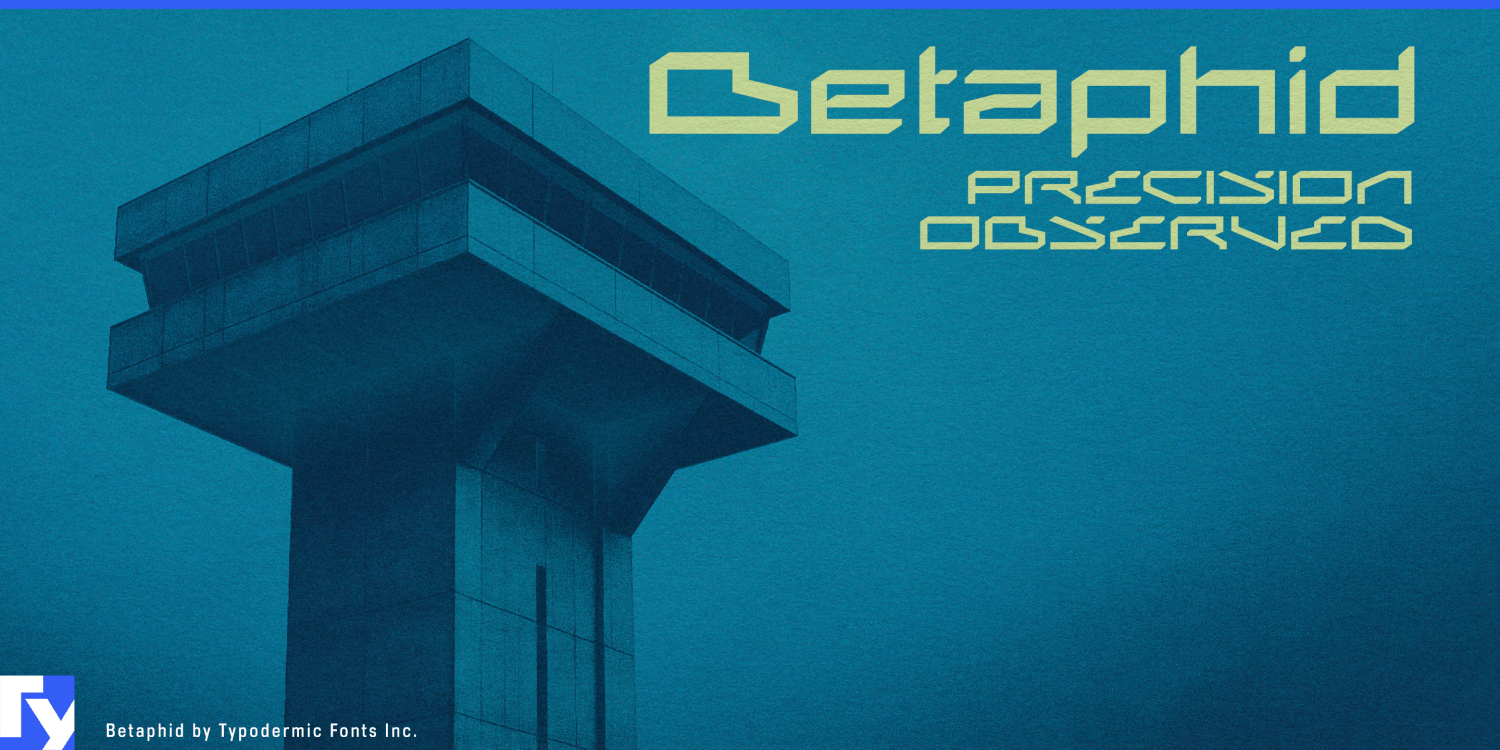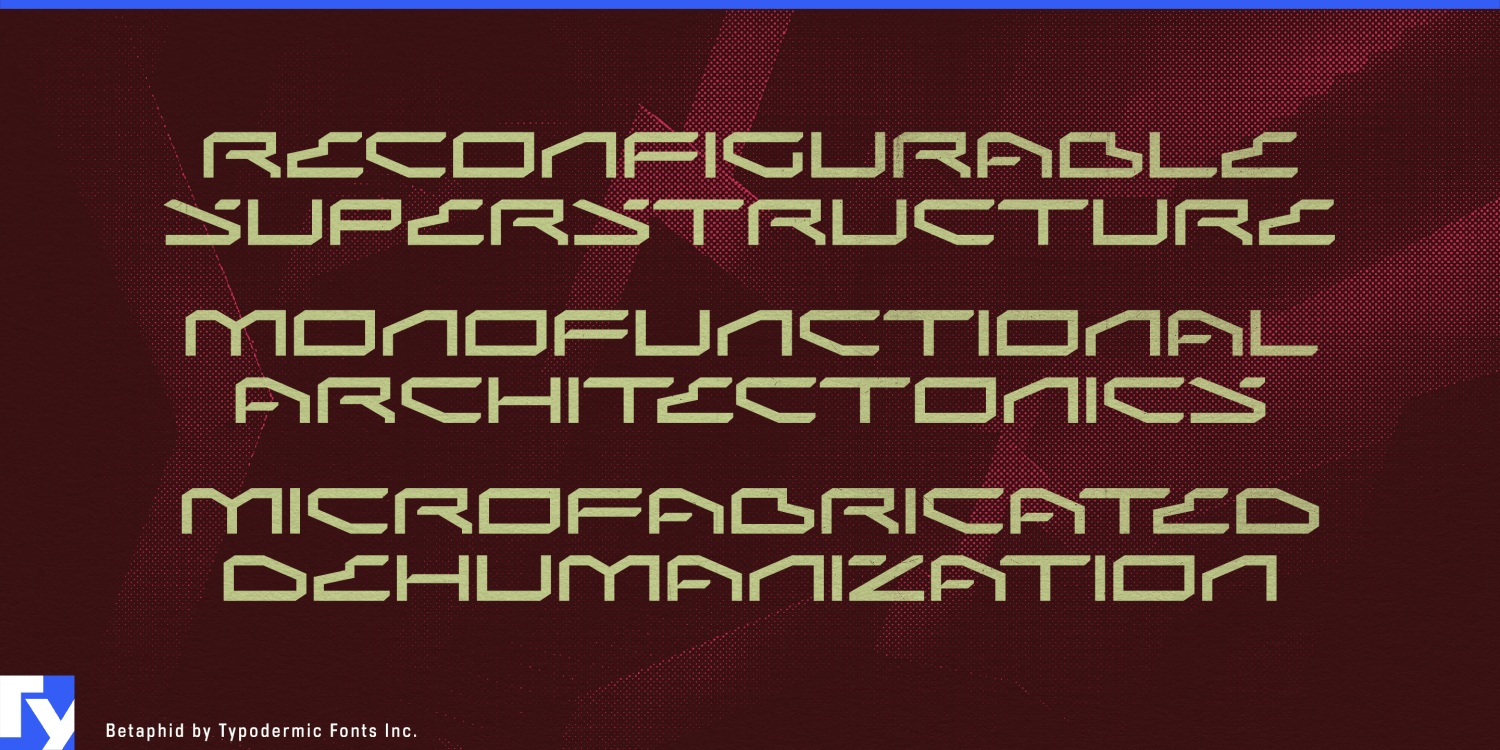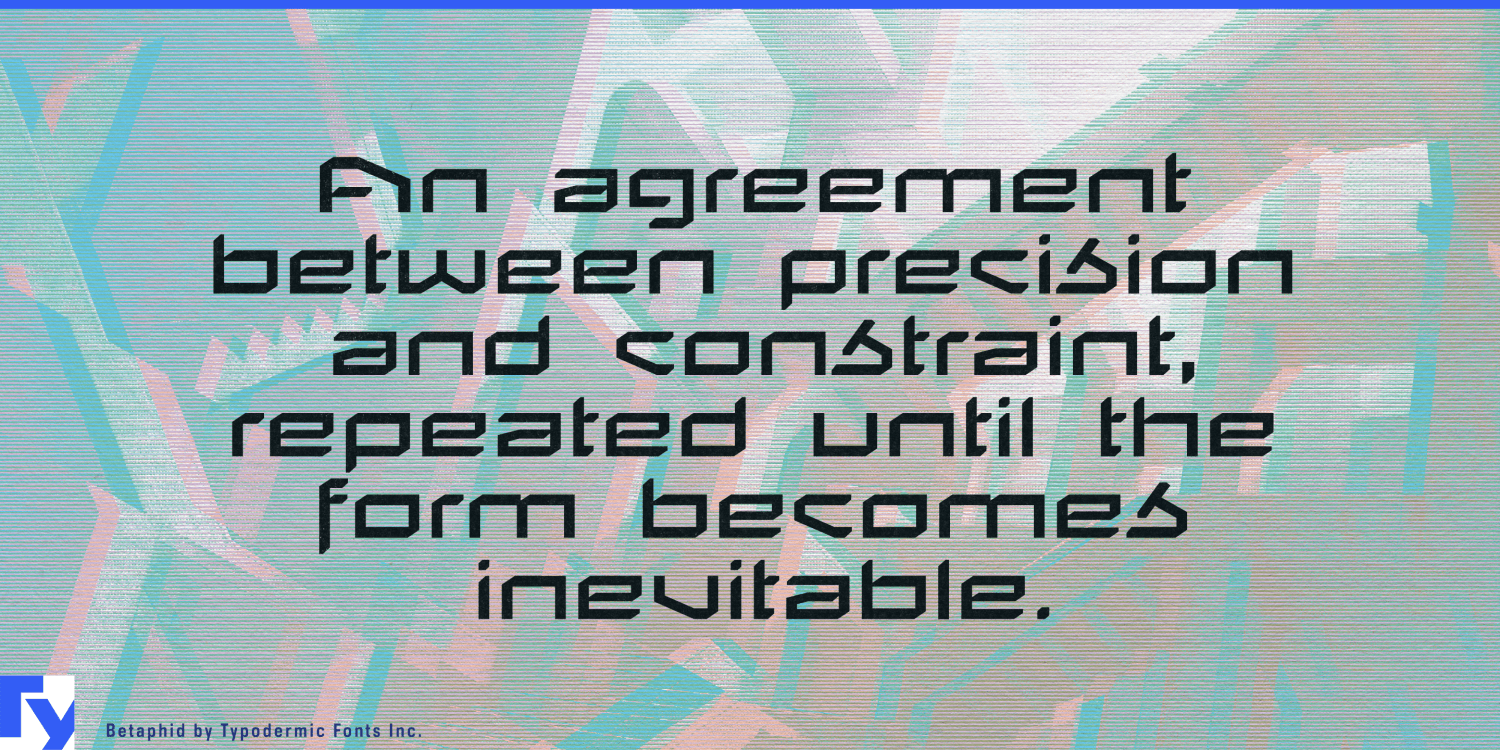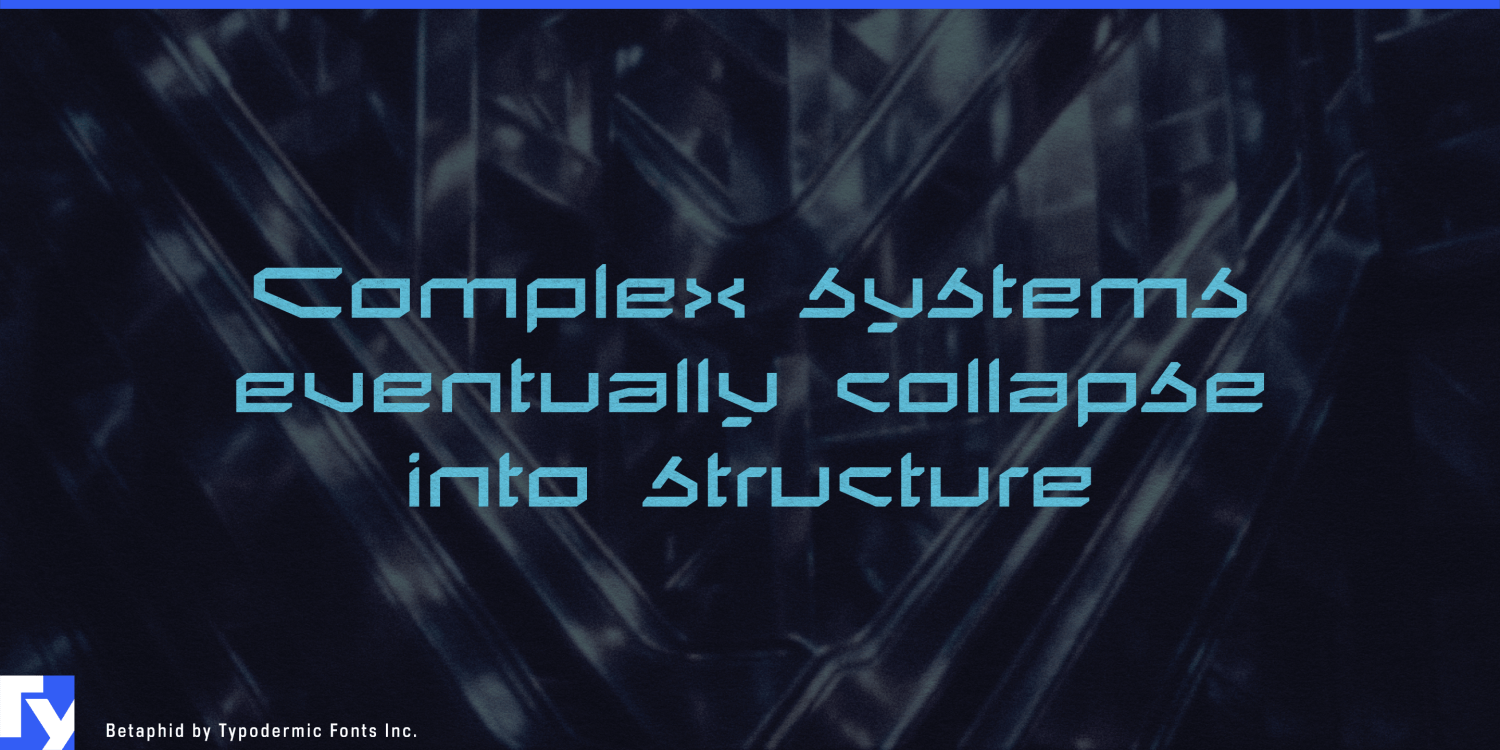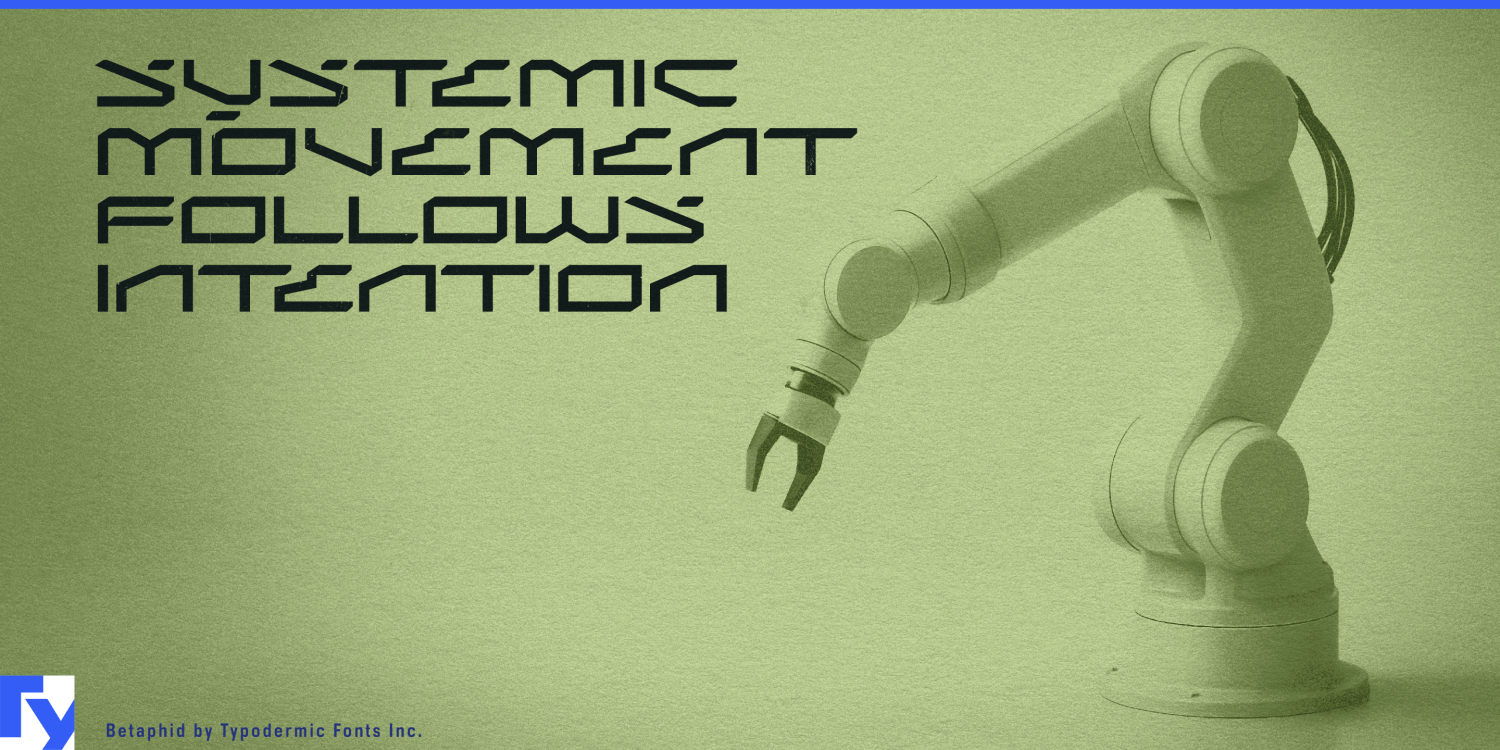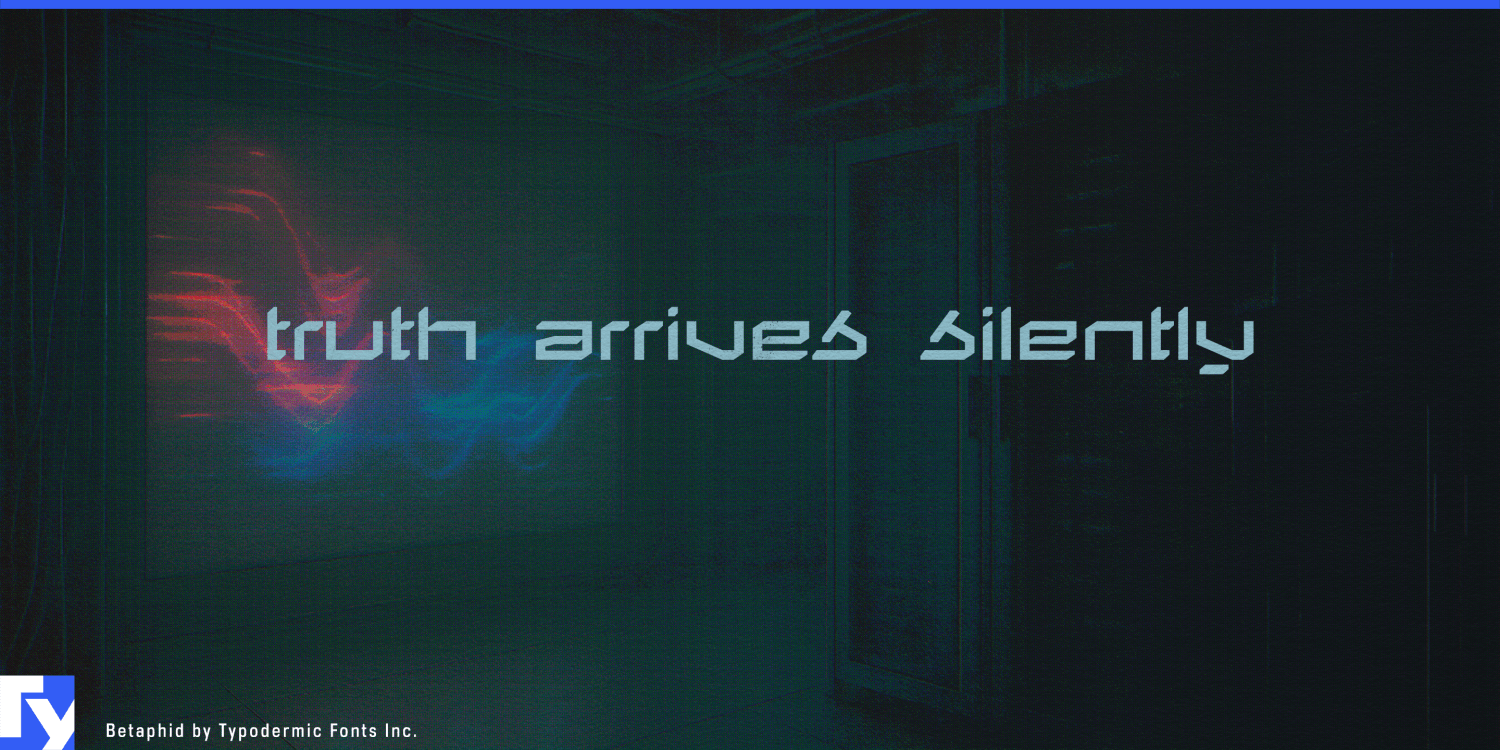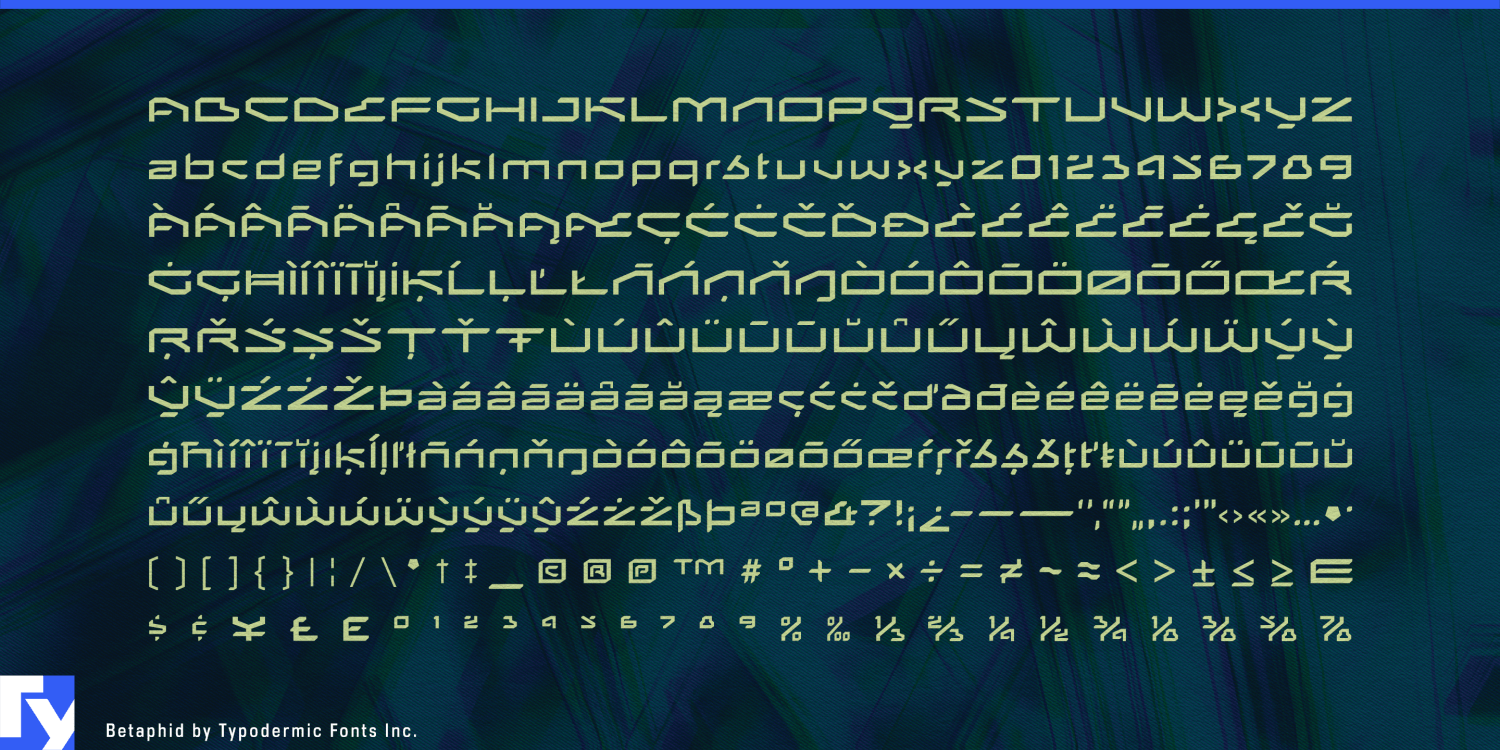
Betaphid
Font Family by Typodermic
Some product names need to behave more like engineered markings than ordinary typography. On a carbon-fiber bike frame, snowboard, helmet, hockey stick, hard equipment case, or piece of protective armor, the name also has to become part of the object. Betaphid is built for that role. Its wide, angular forms distort familiar Latin construction into something more coded and emblematic, giving short names and series identifiers an aggressive technical presence without relying on stencil lettering, scratches, or military clichés.
High-performance cycling equipment is a particularly strong fit. Downhill and enduro bikes, carbon road frames, wheelsets, full-face helmets, and cycling protection offer long or angular surfaces where Betaphid can become part of the industrial design. Frame model names, fork graphics, helmet-side lettering, component families, protection-series identifiers, equipment cases, and limited editions can sit halfway between typography and a proprietary mark.
Snow equipment offers the same advantage at a larger scale. Snowboard topsheets, ski tails, bindings, goggles, helmets, technical boots, and spine protection frequently use model names and performance categories as major graphic elements. Betaphid’s extended proportions are especially comfortable on skis and boards, where short names and series identifiers can stretch across the product rather than being confined to a conventional label.
Hockey, motocross, and impact-protection systems give Betaphid’s aggression a practical context. Sticks, gloves, helmets, goalie equipment, chest protectors, goggles, riding boots, and protective armor can use it for model families, helmet graphics, equipment series, technology labels, athlete editions, and retail displays. Its fragmented shapes sit naturally among shells, vents, panels, and layered protective structures.
Rugged field equipment provides a professional counterpart to the sports applications. Protective cases, modular packs, rugged tablets, portable power systems, communications hardware, flashlights, rescue helmets, protective eyewear, and expedition equipment can use Betaphid for model families, capacity classes, case markings, product generations, packaging, and trade-show graphics.
Betaphid is strongest in short settings where lettering can become a visual object of its own: the model name on the frame, the identifier across the snowboard, the series code on the helmet, or the mark on the hard case. It is typography designed to look as though it was engineered into the equipment from the beginning.